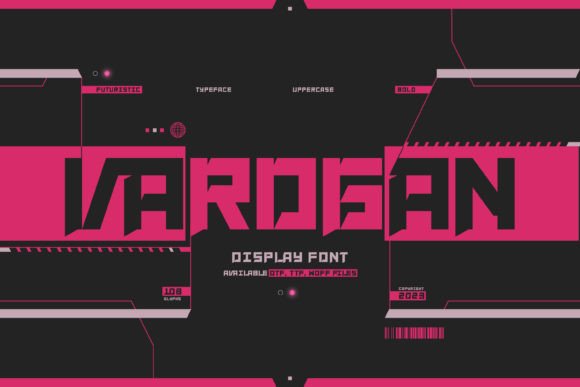
Indulge in the captivating allure of Varogan, a display font masterpiece meticulously crafted to elevate your designs to new heights. Imagine the impact of a font that harmoniously fuses the power of urban street style with the allure of futuristic flair.
Varogan's striking letterforms, particularly the bold and assertive 'B', exude an aura of modernity that will command attention and leave an indelible mark on your creations. Unleash your creativity with this versatile font, designed to complement a myriad of tech-inspired and futuristic themes.
Immerse yourself in a world where imagination and innovation collide, where Varogan transforms your designs into captivating expressions of digital prowess. Whether it's a cutting-edge website, a sleek app interface, or an eye-catching social media post, Varogan empowers you to communicate with style and impact.
Experience the thrill of typography taken to the next level. Let Varogan ignite your designs with its bold character and undeniable charm. Embrace the font that will redefine your creative horizons and leave a lasting impression on your audience.